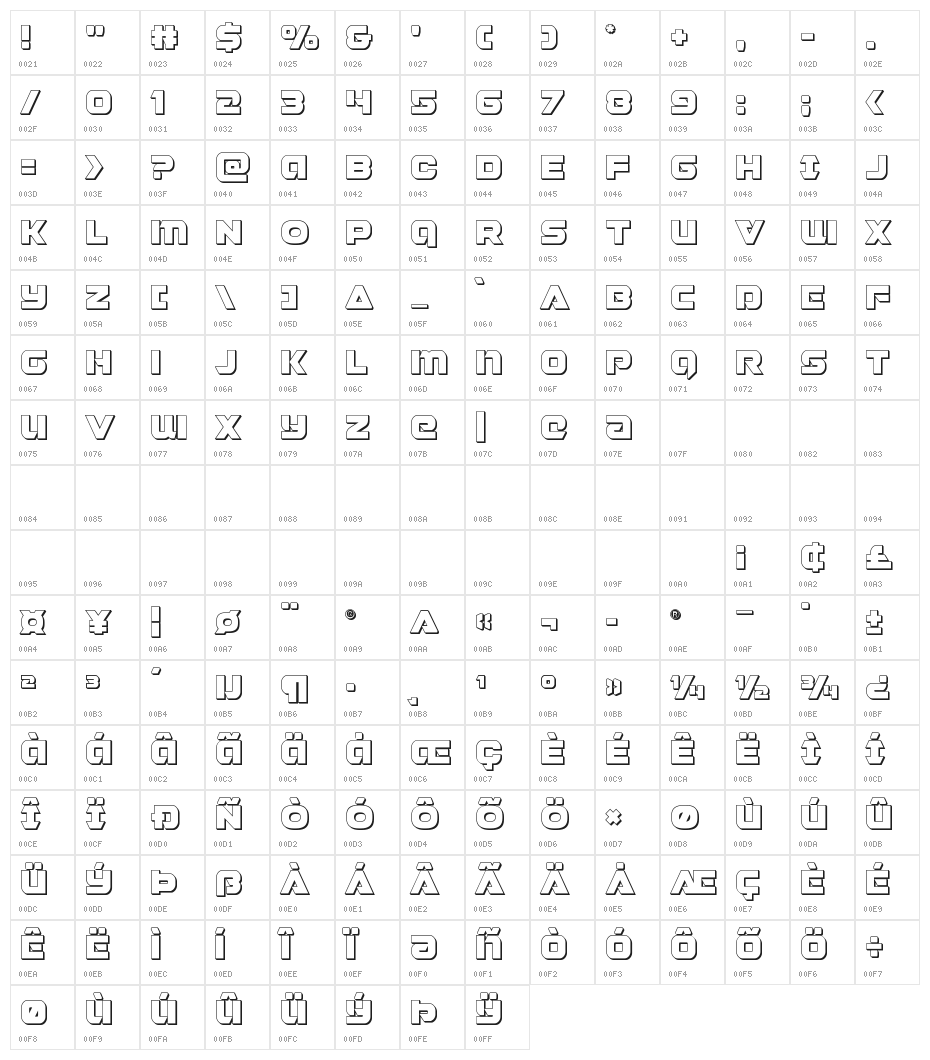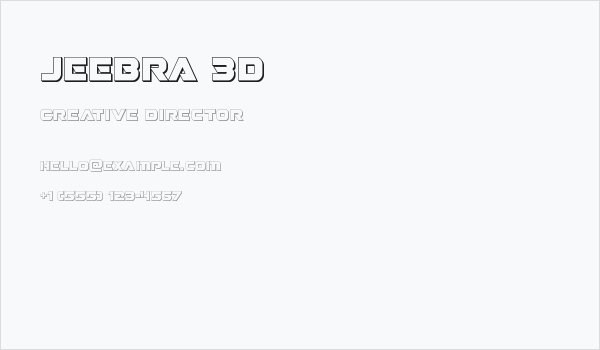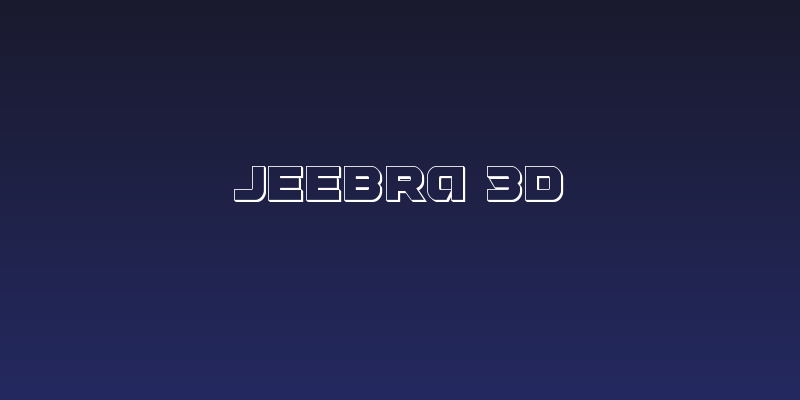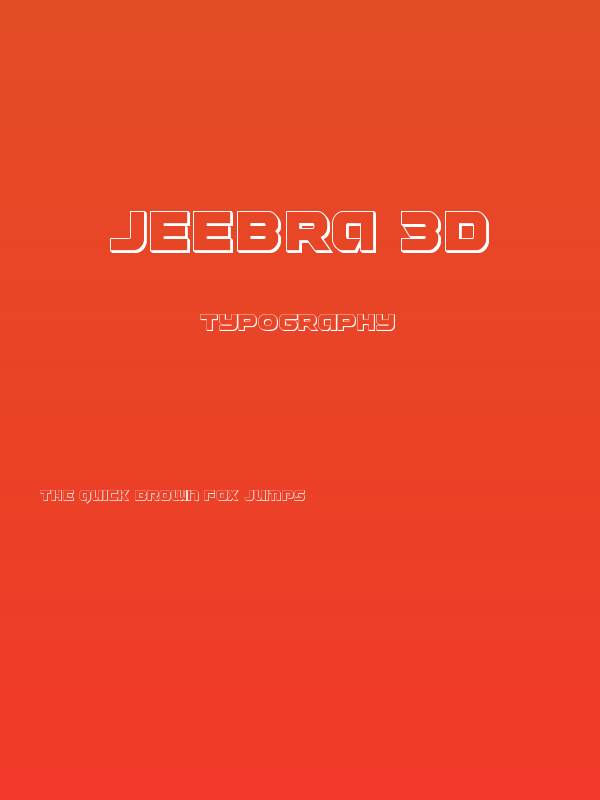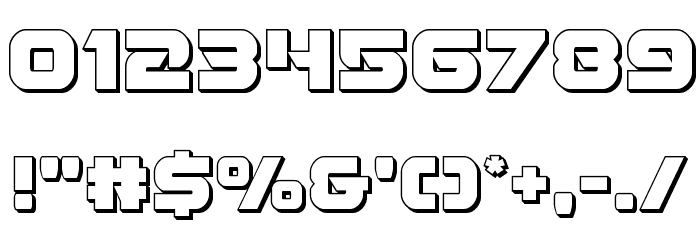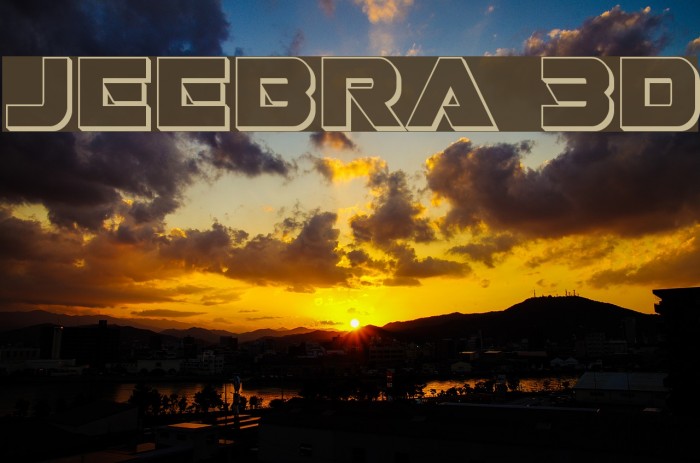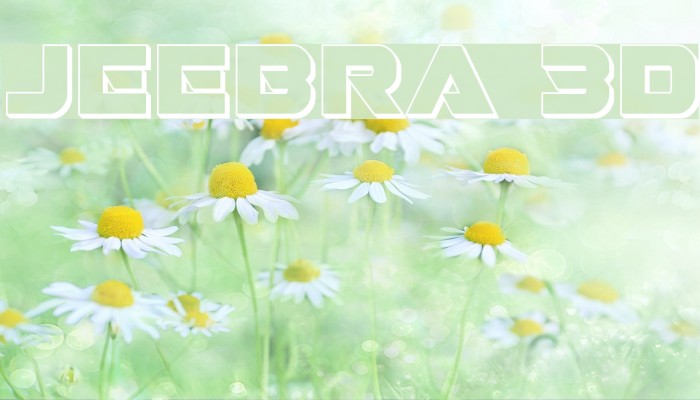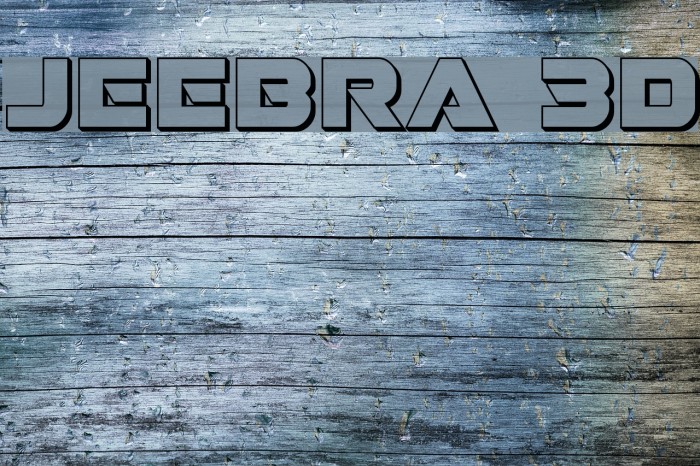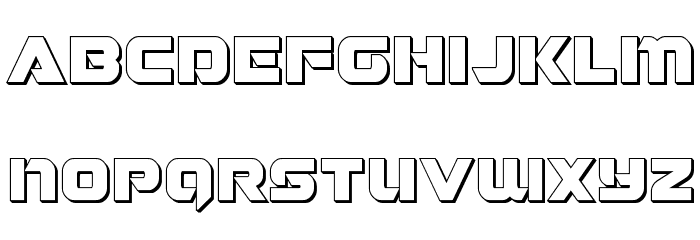
Jeebra 3D Font
Jeebra 3D Description
This font features a bold, three-dimensional appearance with a futuristic and geometric design. Each character is outlined, creating a hollow effect that enhances its 3D look. The letters are uniformly wide, with sharp angles and clean lines, giving them a modern and tech-inspired feel. The uppercase and lowercase letters maintain a consistent style, with the lowercase mirroring the uppercase in form. The numerals and special characters follow the same design principles, ensuring a cohesive look across all glyphs. This font is ideal for projects that require a standout, eye-catching typeface with a modern edge.
| Proposed Projects | Ideal for technology branding, video game titles, sci-fi posters, and modern advertising campaigns. |